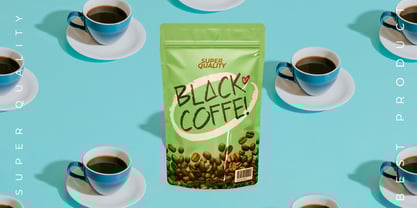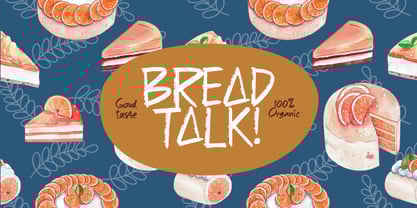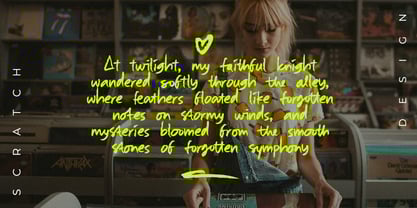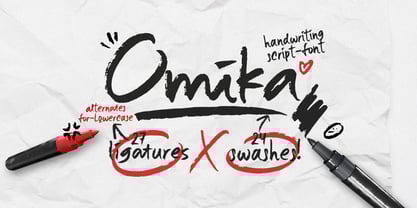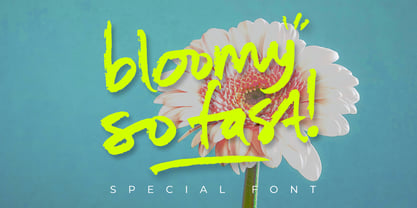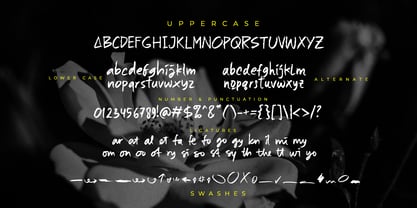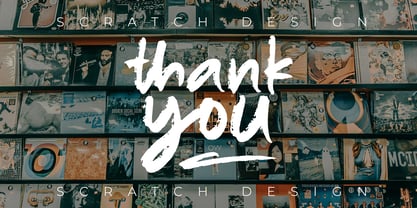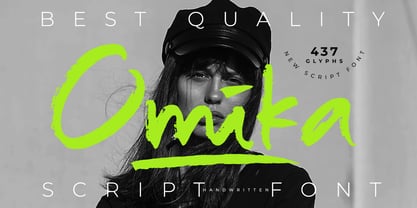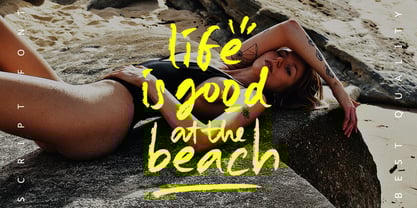
Omika
The Omika Font Family was designed by Gitayogi Irhandi and published by Scratch Design. Omika contains 1 styles.
Introducing our bold script font, it's a modern and textured typeface that captures the raw, expressive feel of writing with a real board marker. With its thick strokes and authentic hand-drawn style, this font is perfect for making a statement in titles, logos, signatures, branding, posters, and packaging. Whether you're designing a bold headline, personalizing a brand, or crafting a logo that stands out, this font delivers a powerful presence with a touch of handcrafted charm.
Its imperfect, organic texture brings a sense of authenticity and creativity to any project making it a must-have for designers who want their work to feel bold, real, and unforgettable. If you download Omika font features are ligatures, swashes, lowercase alternates.